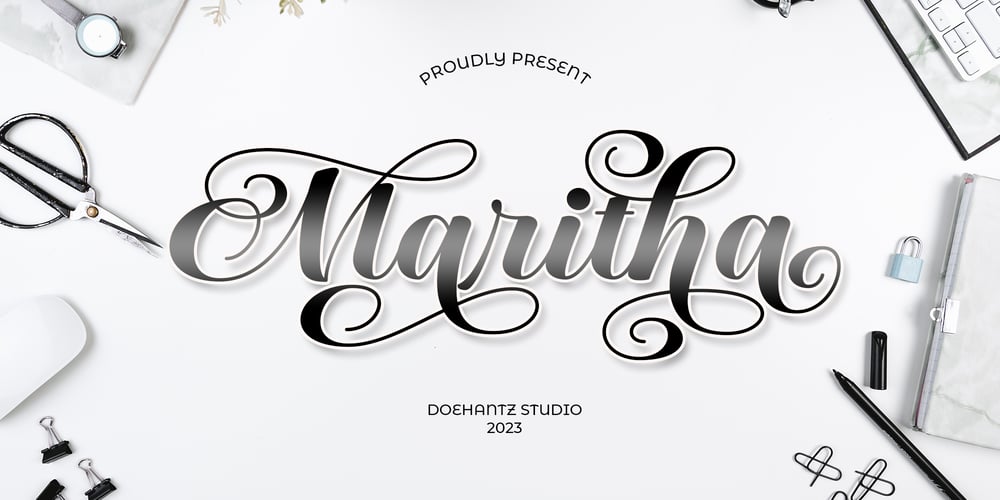
Maritha Font Family was designed by Abduhan Fikhri and published by Doehantz Studio. Maritha contains 1 styles and family package options. Maritha is a gorgeous, cursive and thick lettered handwritten font, crafted to give your headlines and logotype projects a stylish touch. This font reads as strong, confident, and dynamic and can add tons of nostalgic character to your designs. Maritha is PUA encoded which means you can access all of the glyphs and swashes with ease!